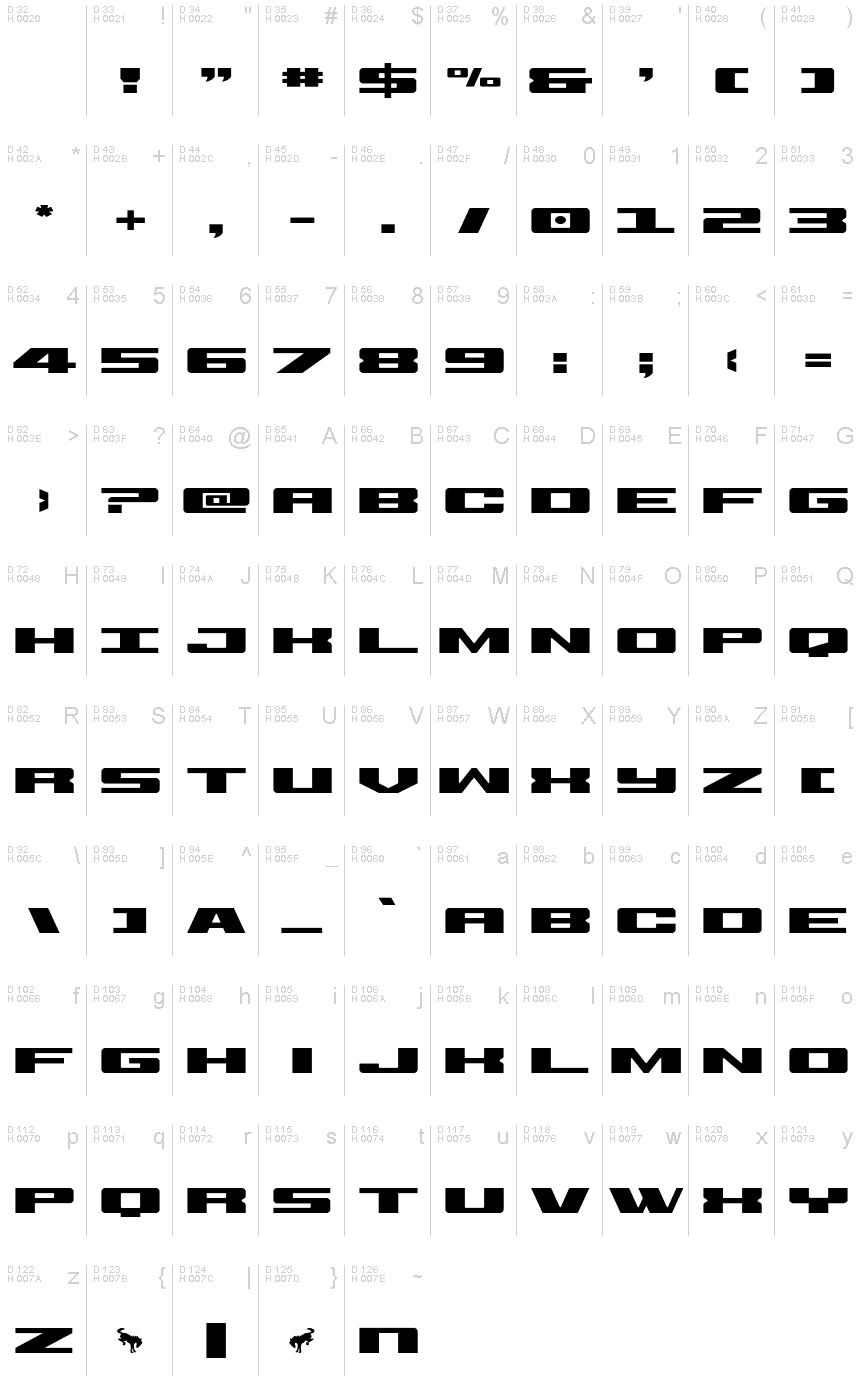
Buckin' Bronc Spaced Expanded
Buckin' Bronc Spaced Expanded gallops into the realm of typography with an unbridled spirit. Designed by Iconian Fonts, this member of the Buckin' Bronc family sports a techno style that's as wild as it is calculated. With its extra-bold weight and ultra-expanded width, this display font commands attention across any medium.
The expansive letterforms exude confidence and are tailor-made for creative projects that demand a strong visual impact—from futuristic branding to thematic event posters. Embrace the power of Buckin' Bronc Spaced Expanded and let your designs stand tall with a typeface that's built to make bold statements.